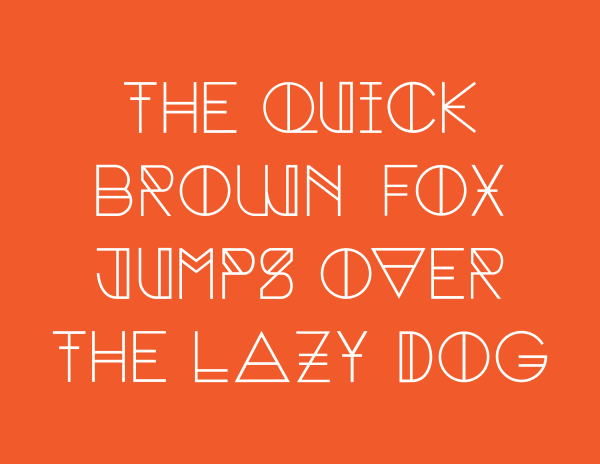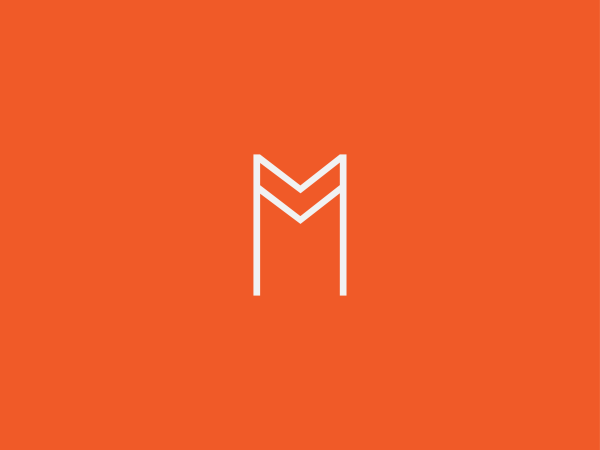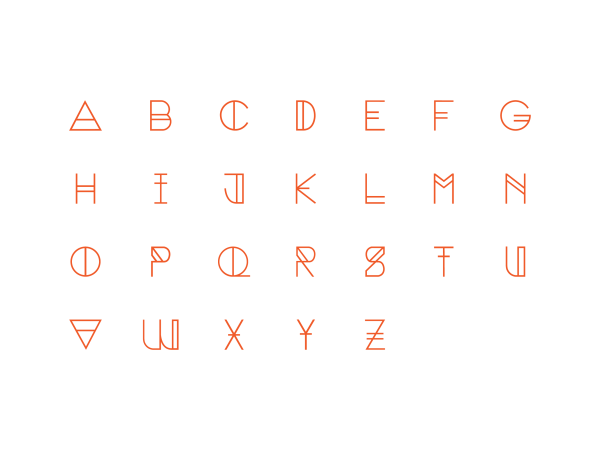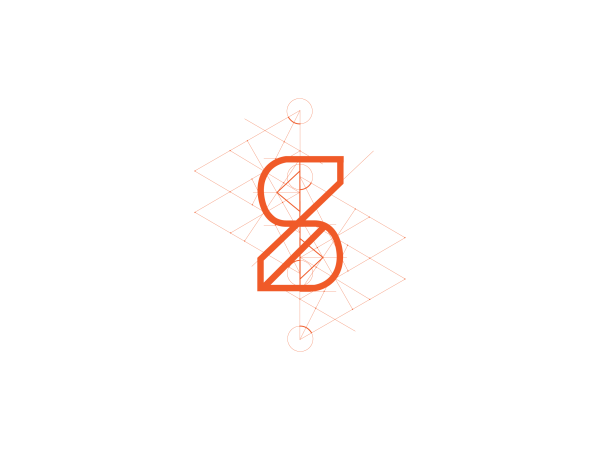
Segment
Segment is a font born out of my idea for applying classroom geometry to typeface design in its raw state. This led me to apply some of the most complex geometric problems we find in our course books into type design. I modified the problems so that the results would lead me to the desired shapes- Letters A-Z
Designer: Abhishek Kumar
Publisher: Abhishek Kumar